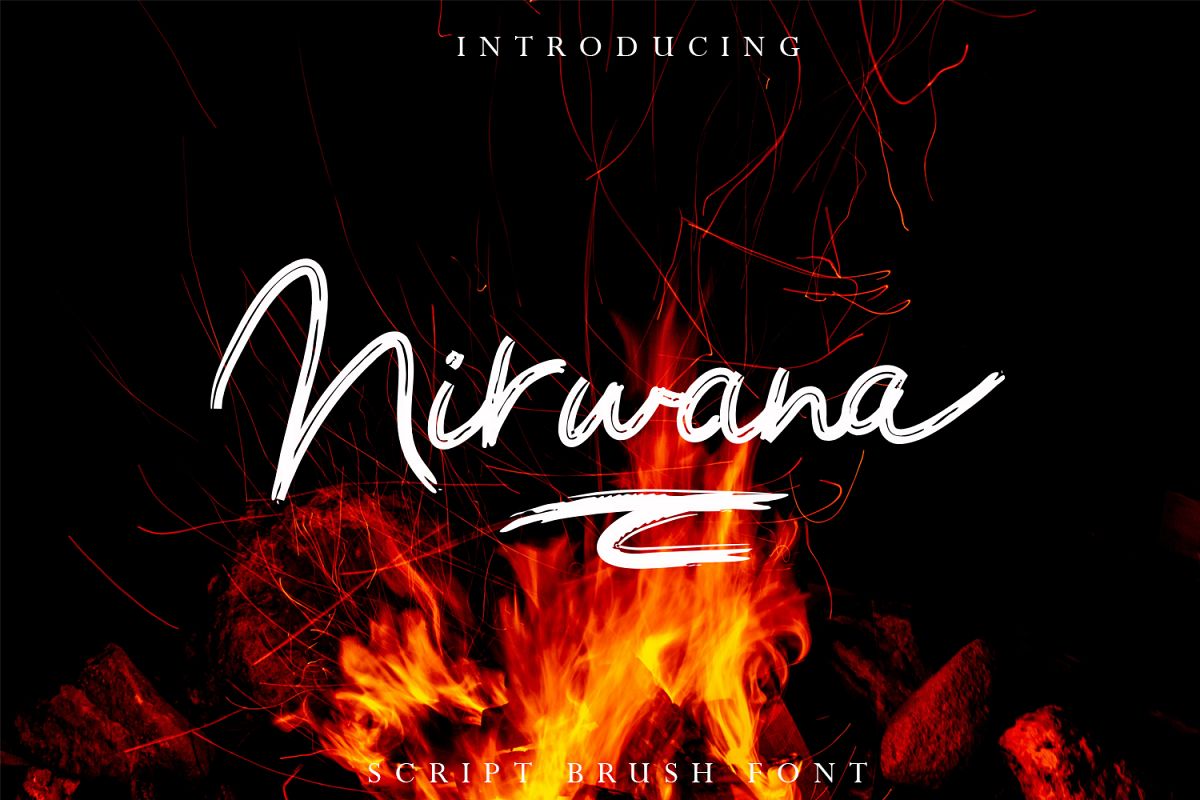
Nirwana Script Font
Nirwana
Introducing Nirwana ; Brush font script that is very suitable and captivating, with a very detailed hand touch so that the characters are the same and this Nirwana will be very suitable for your project design needs